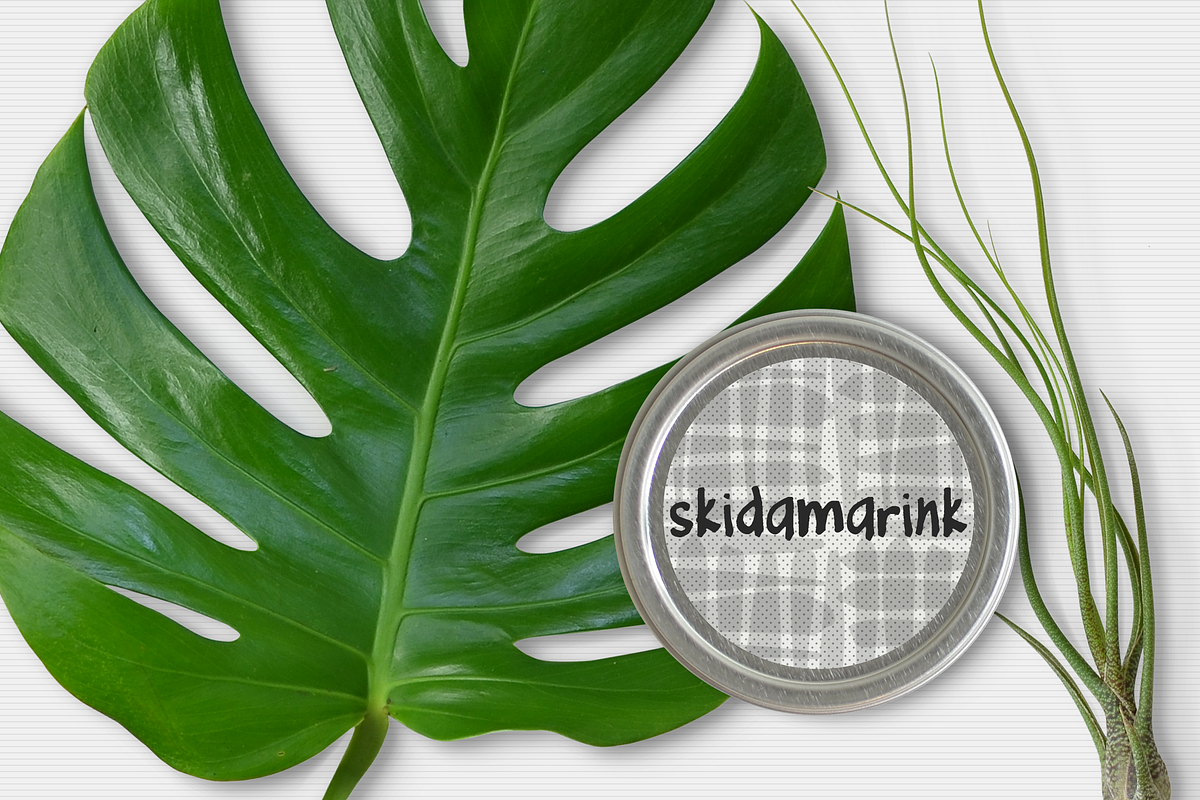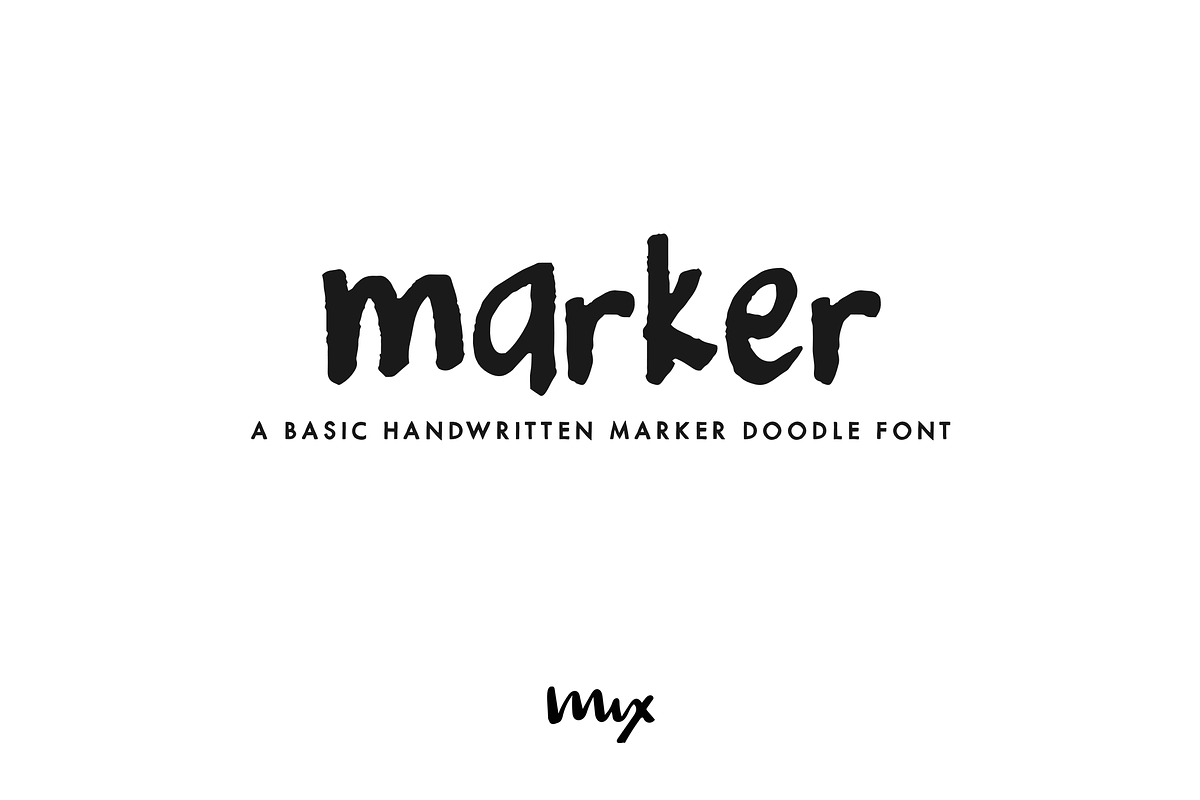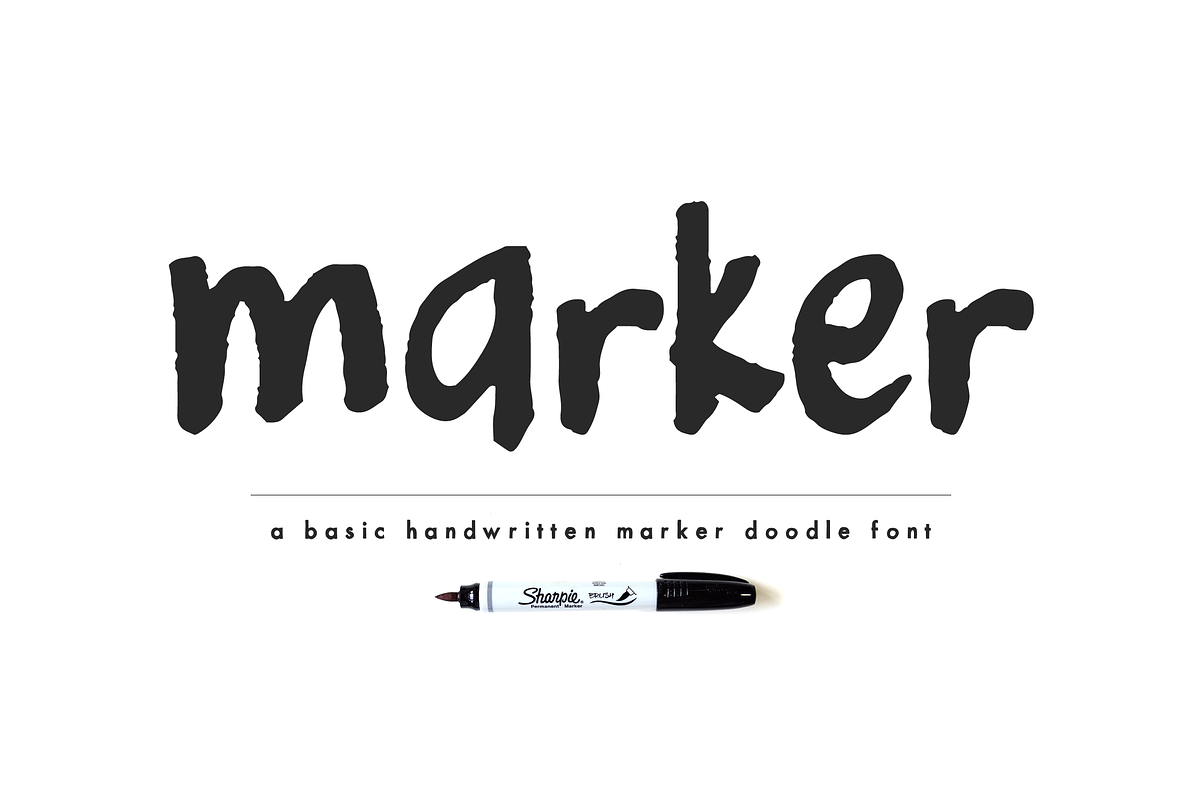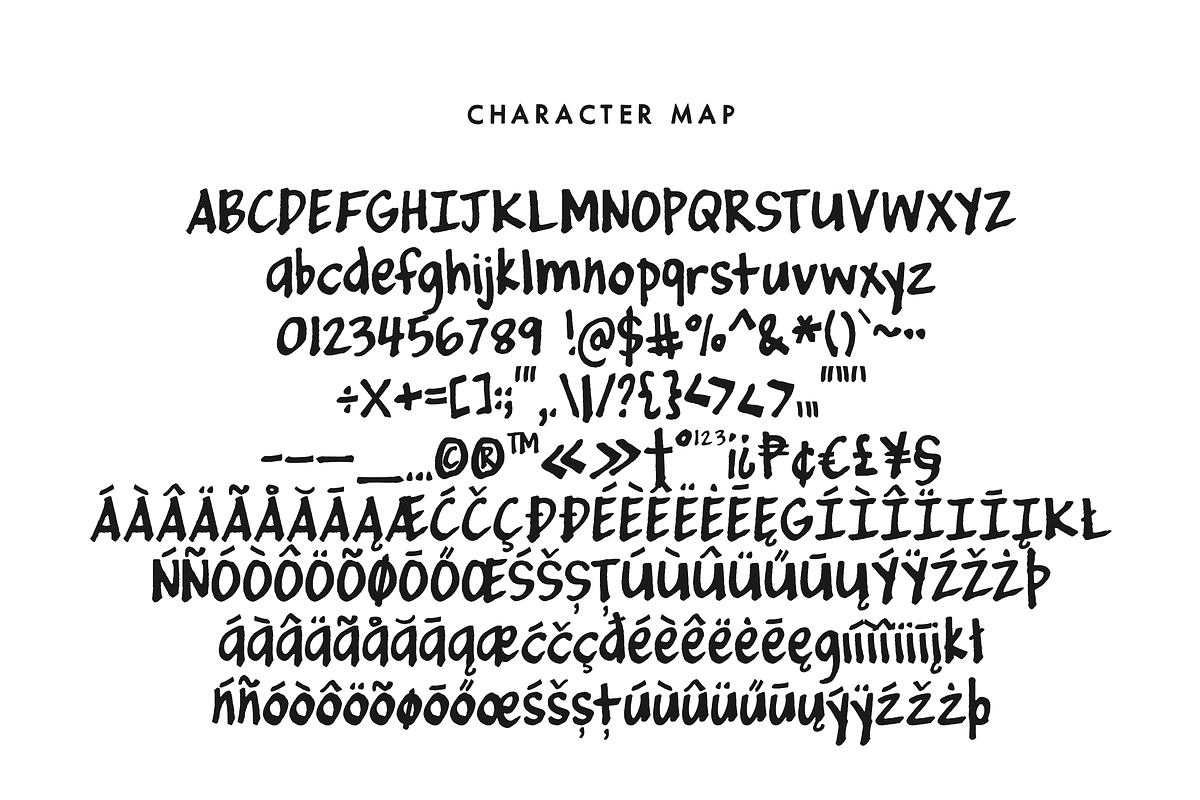
Marker — A Handwritten Doodle Font
MIX MARKER is a playful and unique handwritten label font that adds a touch of human flair to your projects. Imagine writing your name on a mailing label with a marker – that's the fun, casual look and feel of this special font. Each character was handdrawn with a basic everyday marker, and then carefully digitized, cleaned up, and converted into a font. MIX MARKER is perfect for adding a handmade touch to DIY themed projects, or for giving your digital designs a handlettered feel. So why wait? Make what's digital seem handwritten with MIX MARKER .